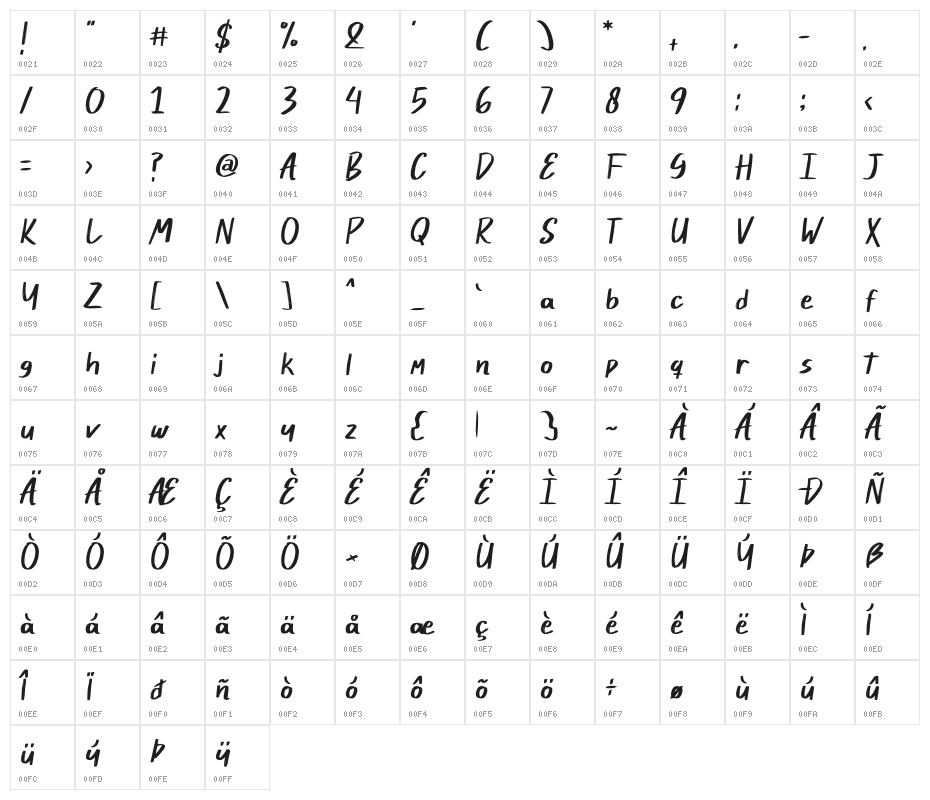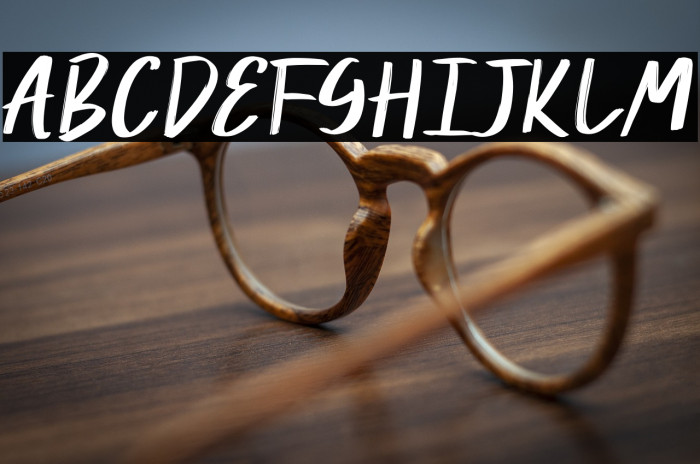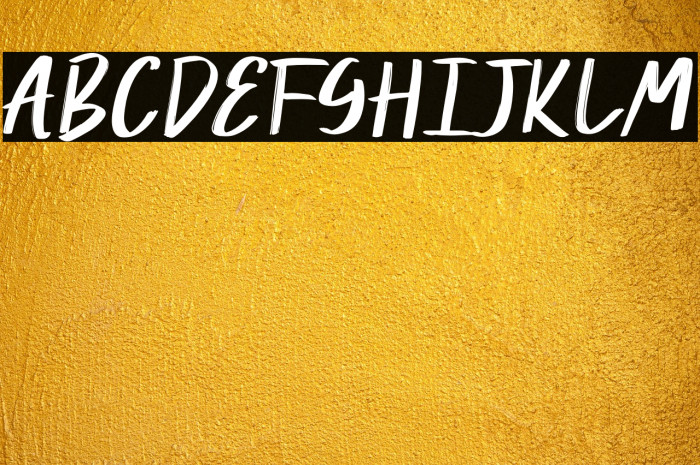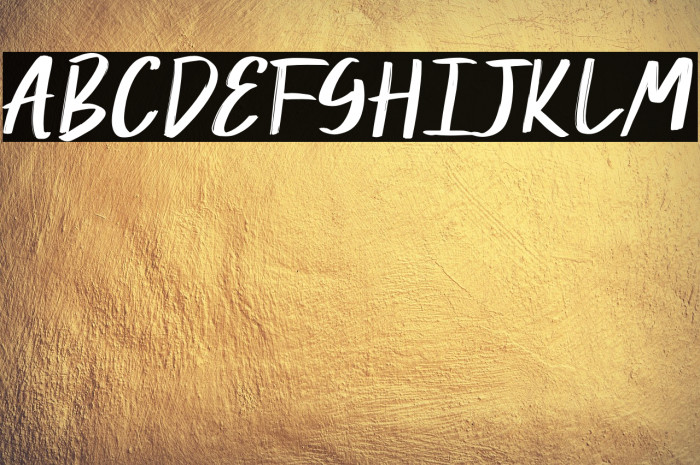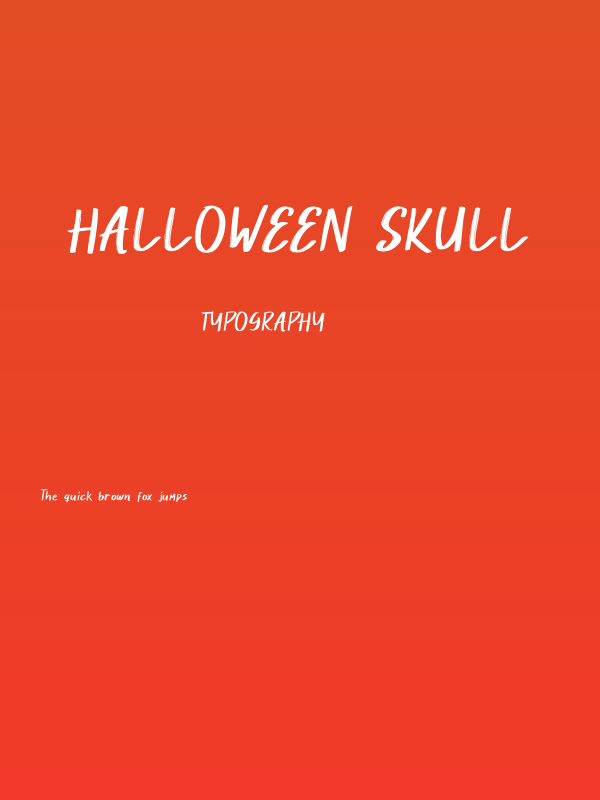
Halloween Skull Font
Halloween Skull Description
This font features a bold, handwritten style with a playful and slightly spooky aesthetic. The letters are characterized by their uneven strokes and dynamic curves, giving them a lively and energetic appearance. The uppercase and lowercase letters maintain a consistent style, with the uppercase being slightly larger and more pronounced. Numbers and special characters follow the same design principles, ensuring a cohesive look across all glyphs. The font's brush-like strokes and irregular edges contribute to its informal and artistic vibe, making it ideal for creative and themed projects.
| Proposed Projects | Ideal for Halloween-themed designs, posters, invitations, and creative branding projects. |